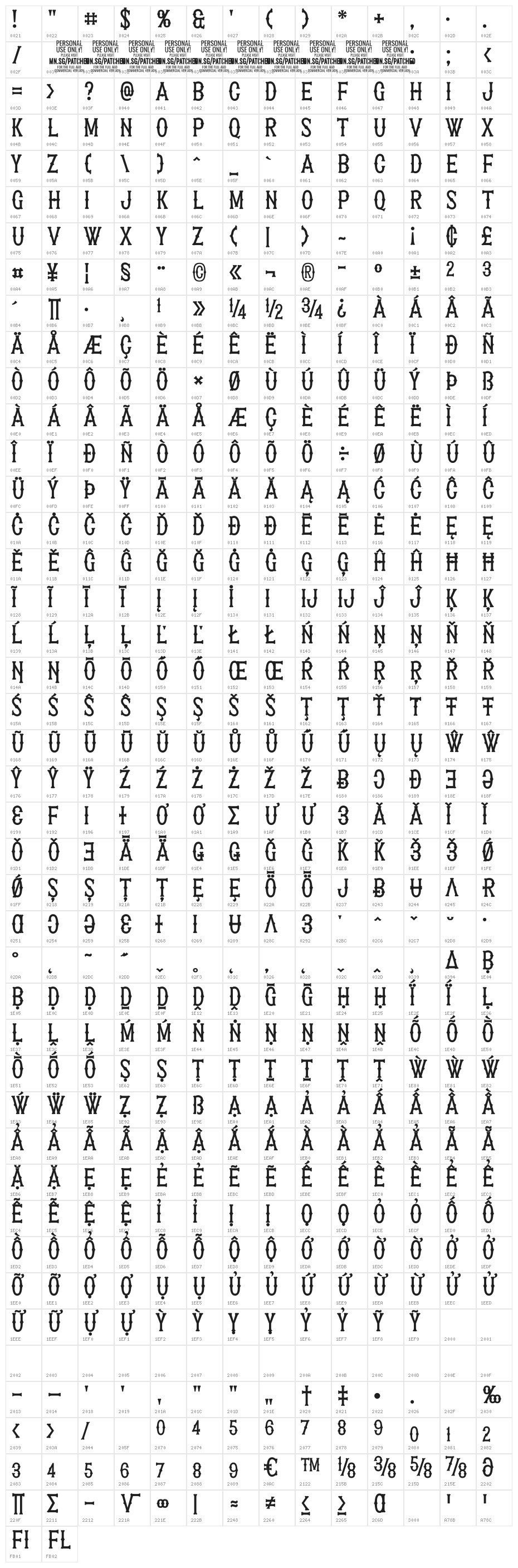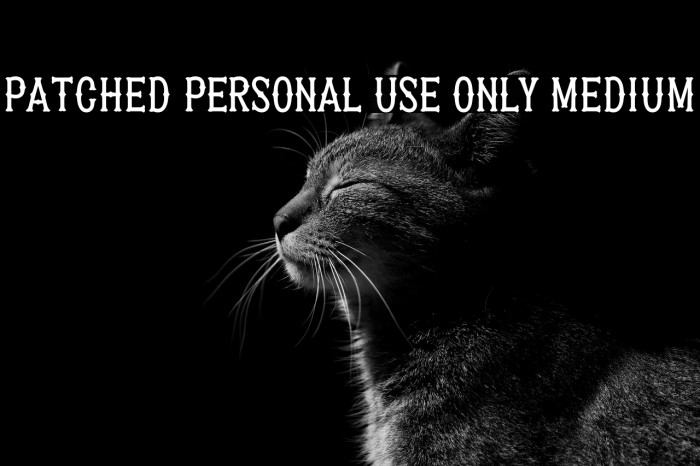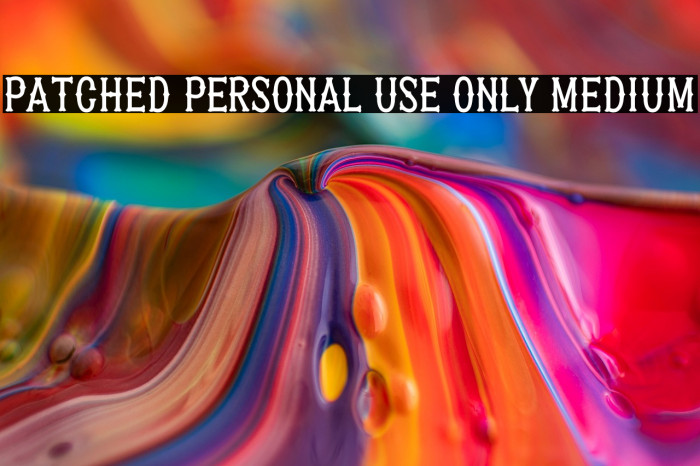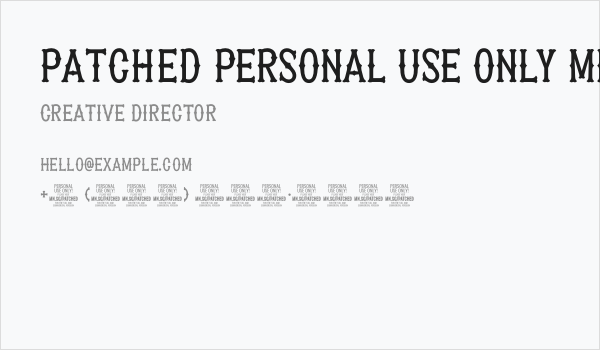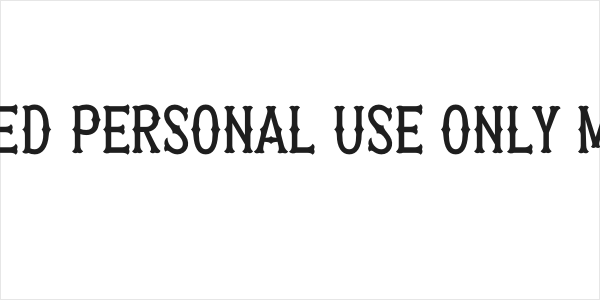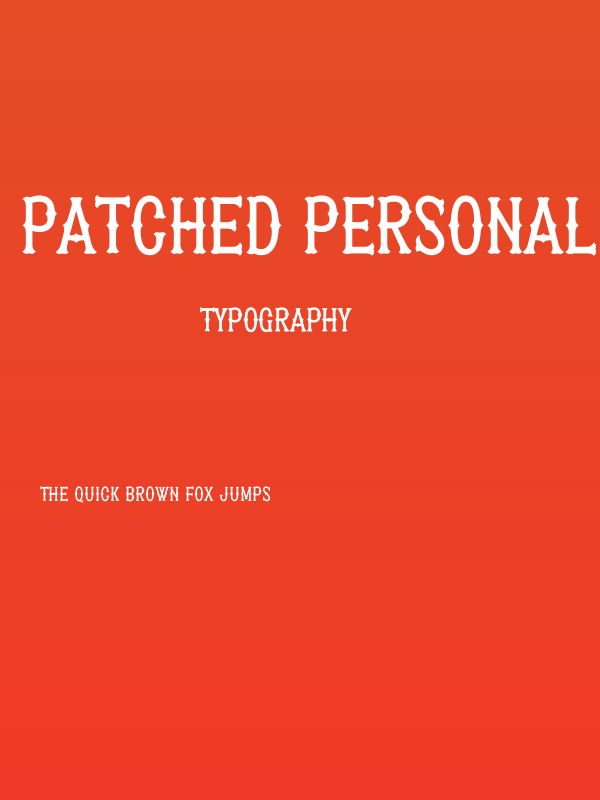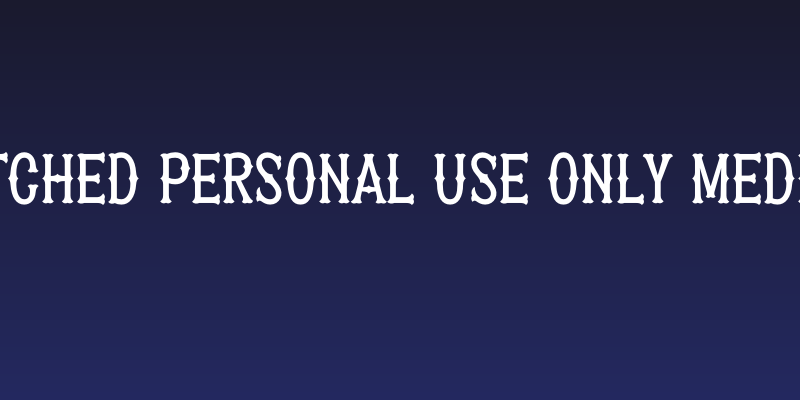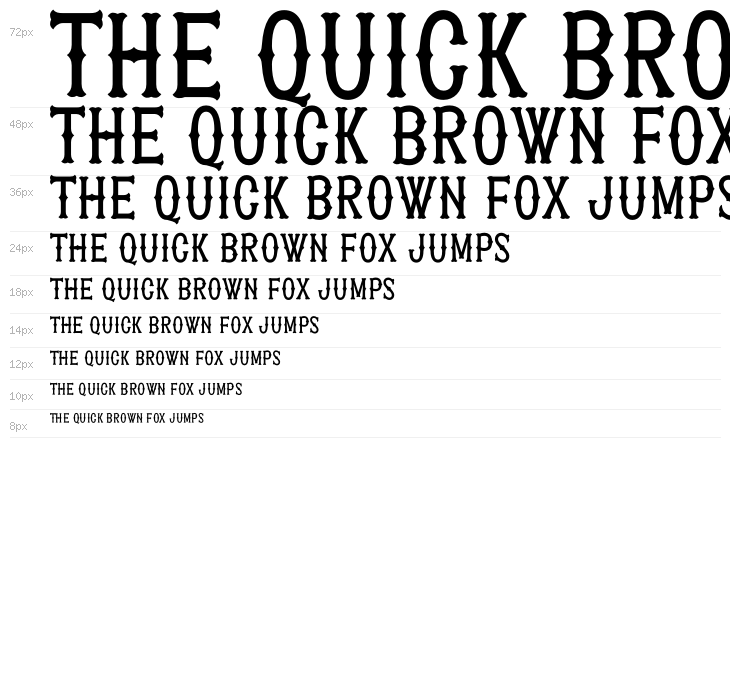
Patched PERSONAL USE ONLY Medium Font
Patched PERSONAL USE ONLY Medium Description
This font features a bold and distinctive style with a vintage flair, characterized by its thick strokes and unique, slightly irregular edges that give it a handcrafted appearance. The uppercase letters are prominent and commanding, while the lowercase letters maintain a consistent style that complements the overall design. The numerals and special characters are equally bold, ensuring readability and impact. This font is suitable for projects that require a strong visual presence and a touch of nostalgia.